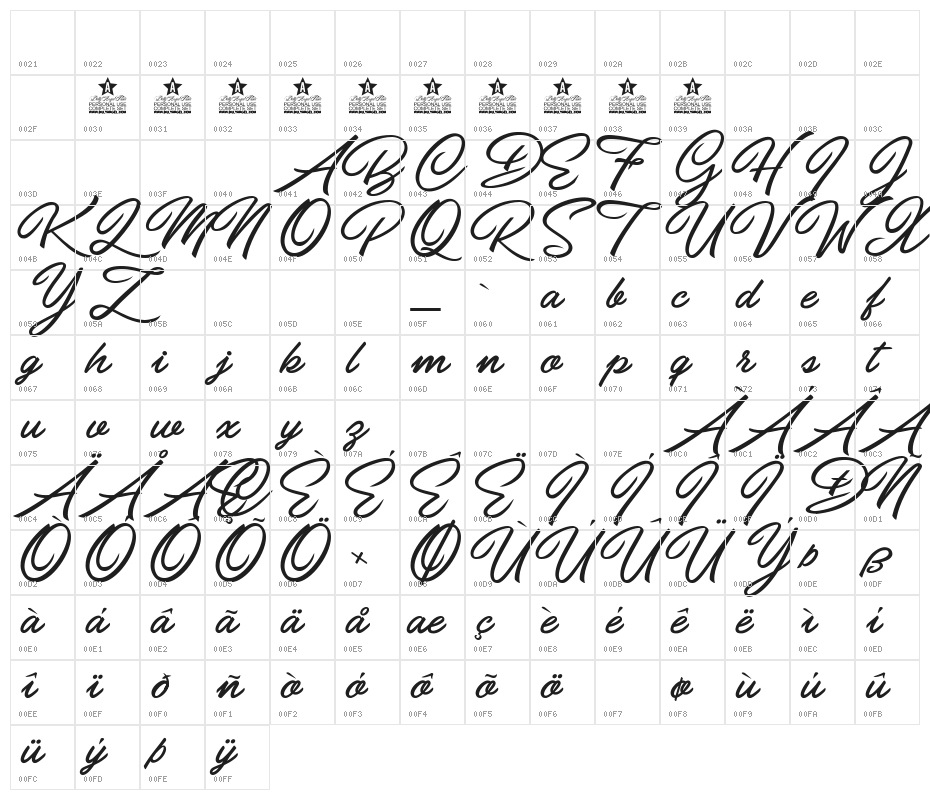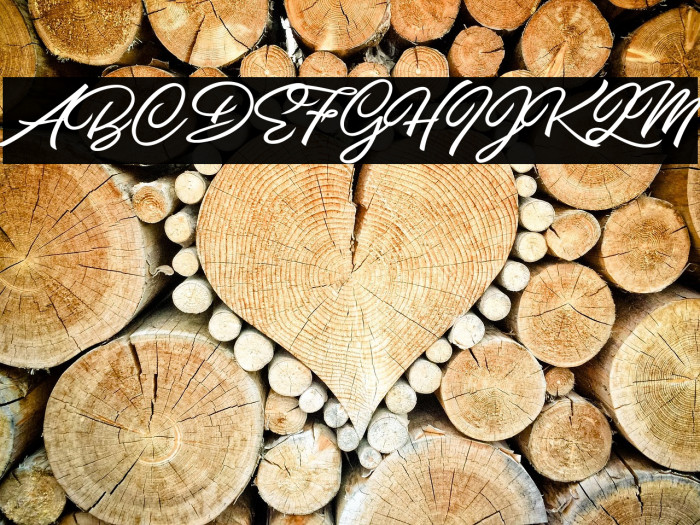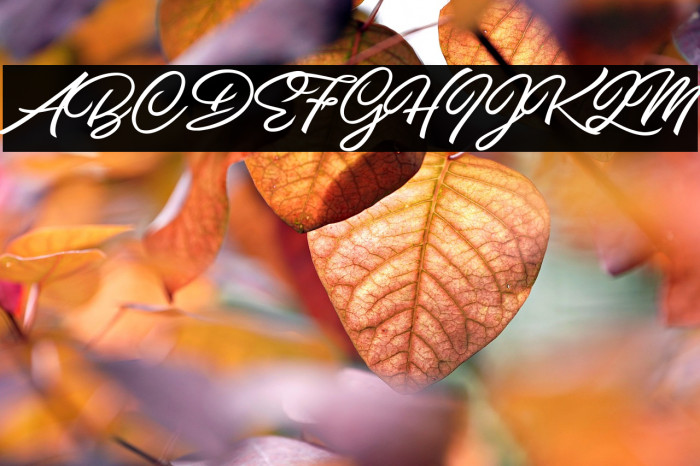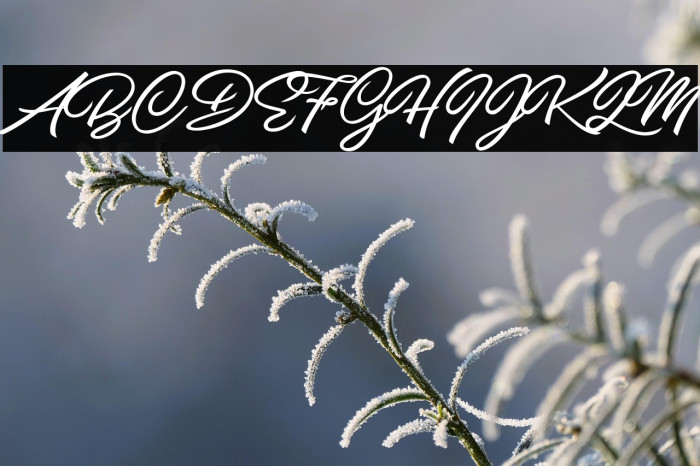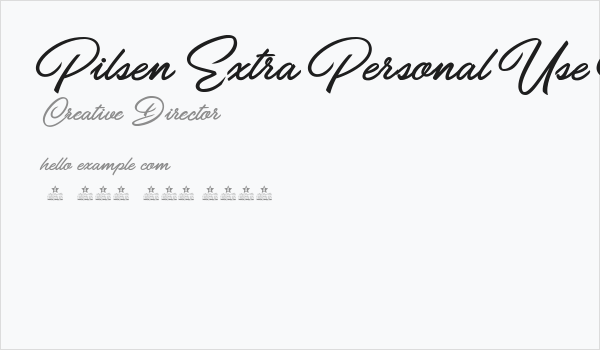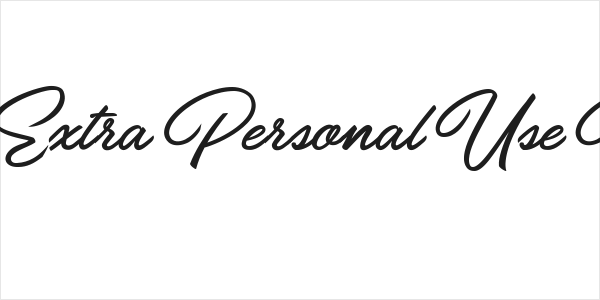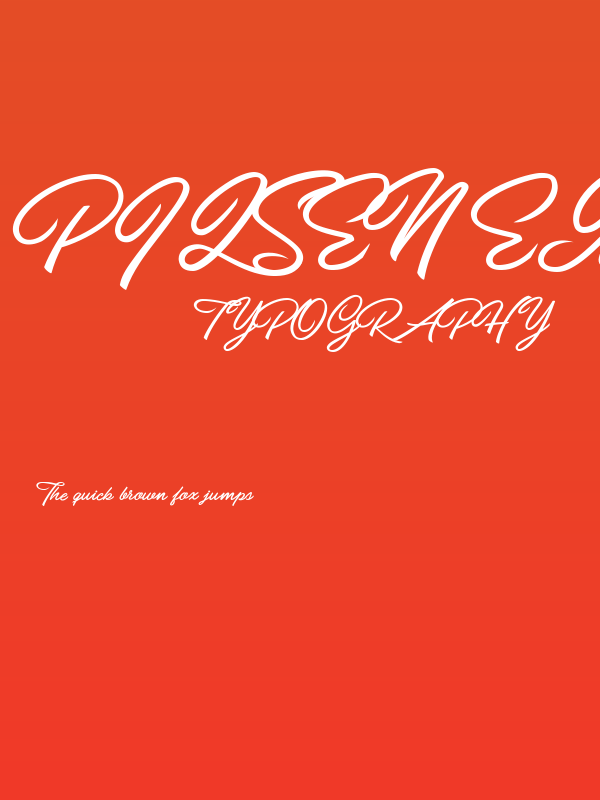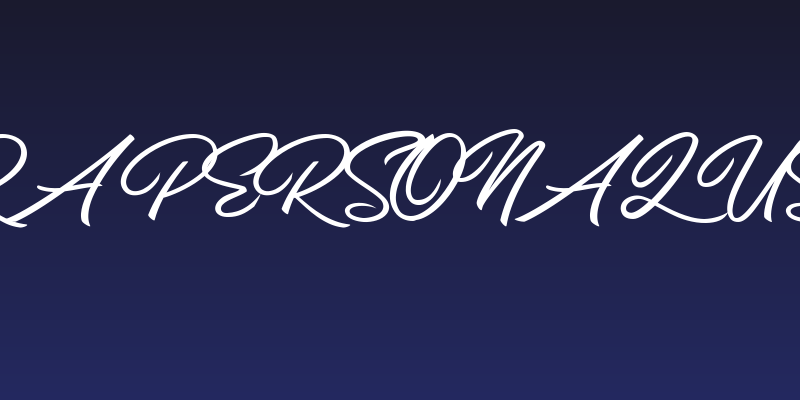
Pilsen Extra Personal Use Regular Font
Pilsen Extra Personal Use Regular Description
This font features a flowing, cursive style that exudes elegance and sophistication. The letters are interconnected, creating a seamless and fluid appearance. The uppercase letters are slightly more ornate, with flourishes that add a touch of drama. The lowercase letters maintain a consistent flow, enhancing readability while retaining an artistic flair. The numbers and special characters are designed to match the overall aesthetic, ensuring a cohesive look across all text elements. This font is ideal for projects that require a personal, handwritten touch, such as invitations, greeting cards, and branding materials.